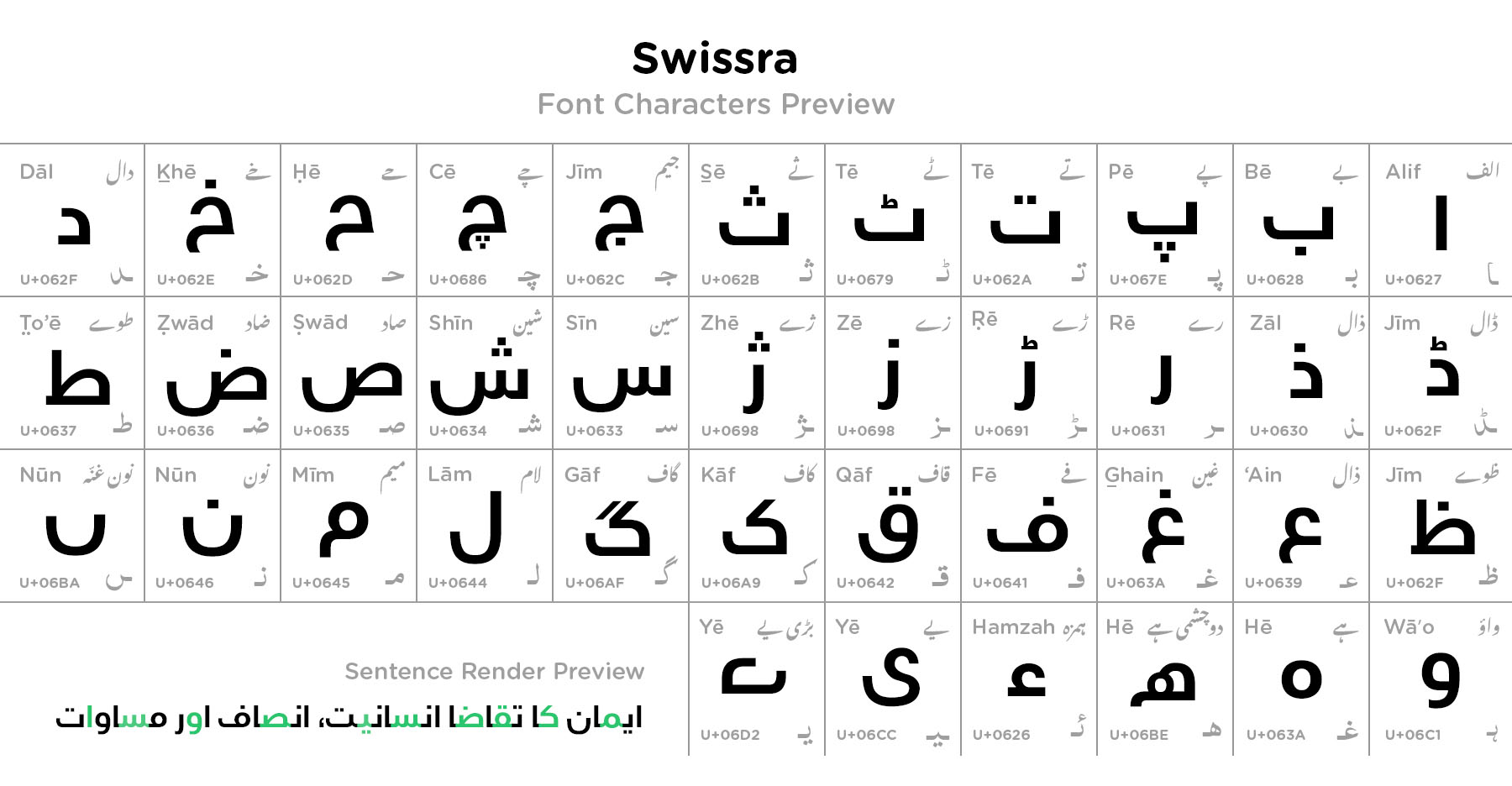
Swissra is an Arabic font influenced by the Swiss graphic style and designed by a type designer Ali Almasri in 2014. This font is the property of Abjad Foundry. The typeface was created with the goal of creating a neutral and well-produced Arabic font family that may be utilized in a variety of applications. It is crafted very creatively in 16 different styles and weights and can be used for any Arabic or Urdu design, heading, paragraph, or writing.
Swissra also seeks to honor Swiss graphic design experience and pass it on to the Arabic graphic design community. Swissra has terminals that are either horizontally or vertically cut. It also has a high x-height and closed openings. It comes in eight different weights, ranging from thin to black.